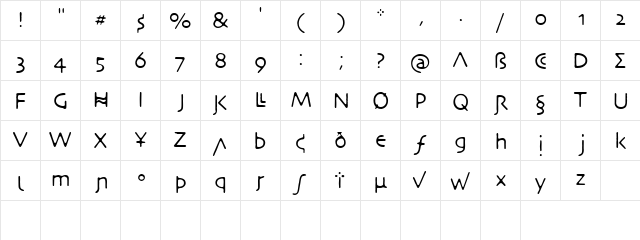
NecroticTissue Regular
Design Context for NecroticTissue Typeface
NecroticTissue offers clean, dependable letterforms without strong stylistic allegiance, making it a practical choice for designers who need flexibility.
Pro Tip: Use NecroticTissue in both headline and body roles to test its range before committing to a single application.